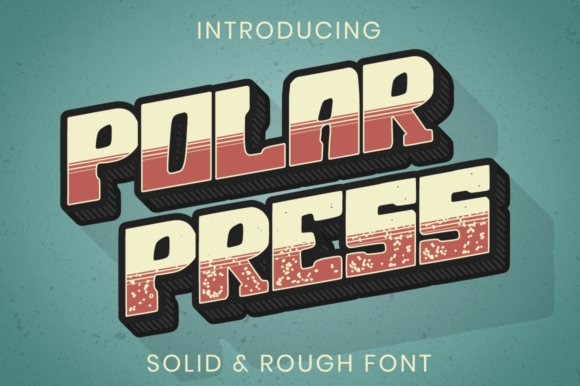
Introducing Polar Press Font, a display font family that exudes vintage charm and visual power. This all-caps font, meticulously crafted by attypestudio, comes in two captivating styles: clean and rough. Its nostalgic and strong aura makes it an ideal choice for a wide range of creative projects, from branding and logos to invitations, stationery, and social media posts.
Polar Press Font is more than just a font; it's a gateway to a bygone era. Its clean style evokes the elegance and simplicity of classic typography, while its rough style adds a touch of grit and authenticity. Whether you're designing product packaging, creating merchandise, or simply expressing yourself through art, Polar Press Font will elevate your work with its timeless appeal.
With Polar Press Font, you'll have the power to create designs that capture attention and leave a lasting impression. Its bold, commanding presence will make your words and visuals stand out, whether you're crafting a logo, designing a poster, or creating eye-catching social media graphics. Its versatility and adaptability make it a must-have tool for any designer or creative professional.
Polar Press Font is not just a collection of letters; it's an invitation to embark on a creative journey. Its nostalgic charm will transport you to a time of classic elegance and timeless beauty, while its rough style will add a touch of modern edge and individuality. With Polar Press Font, your designs will exude a sense of history and authenticity that will resonate with your audience.